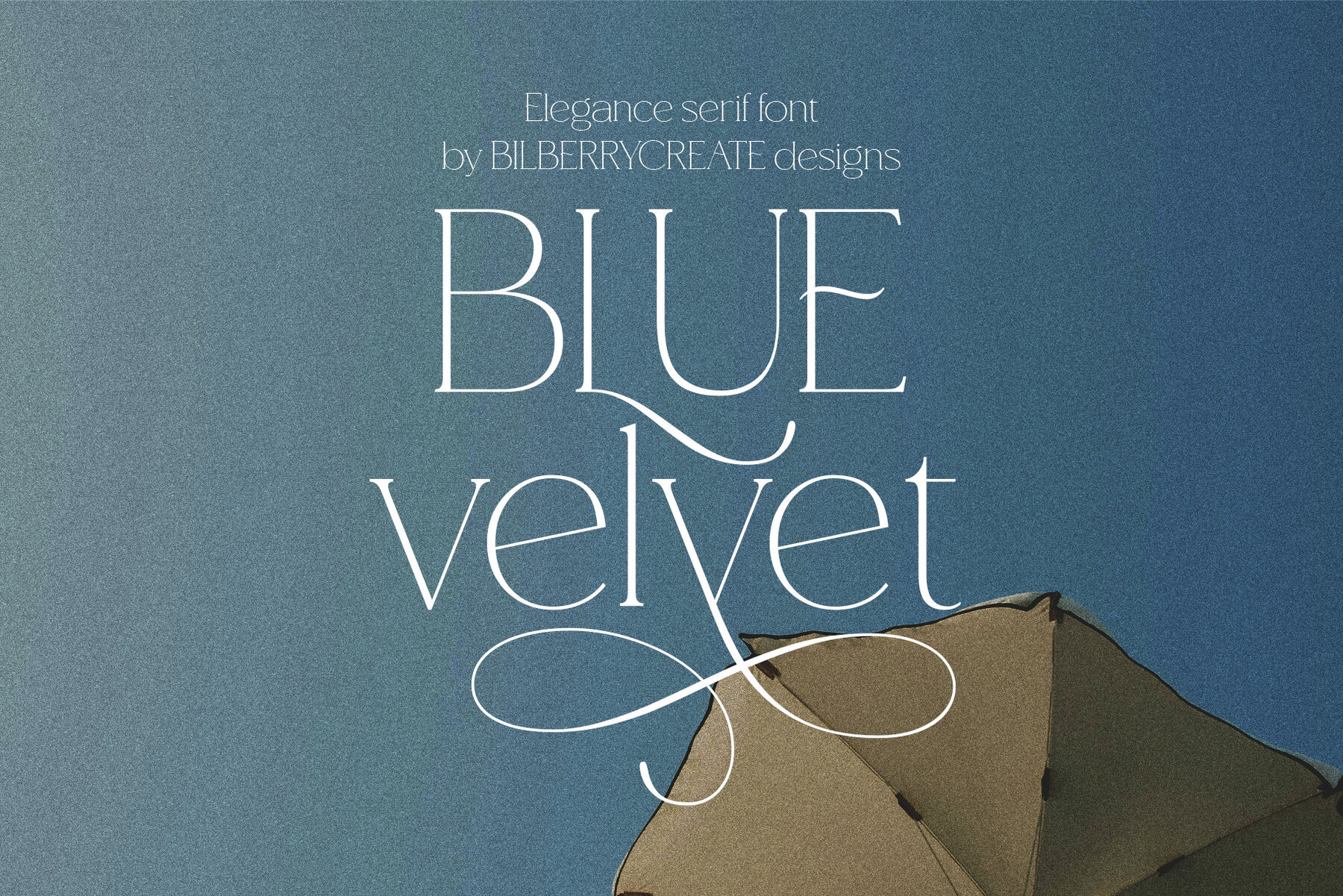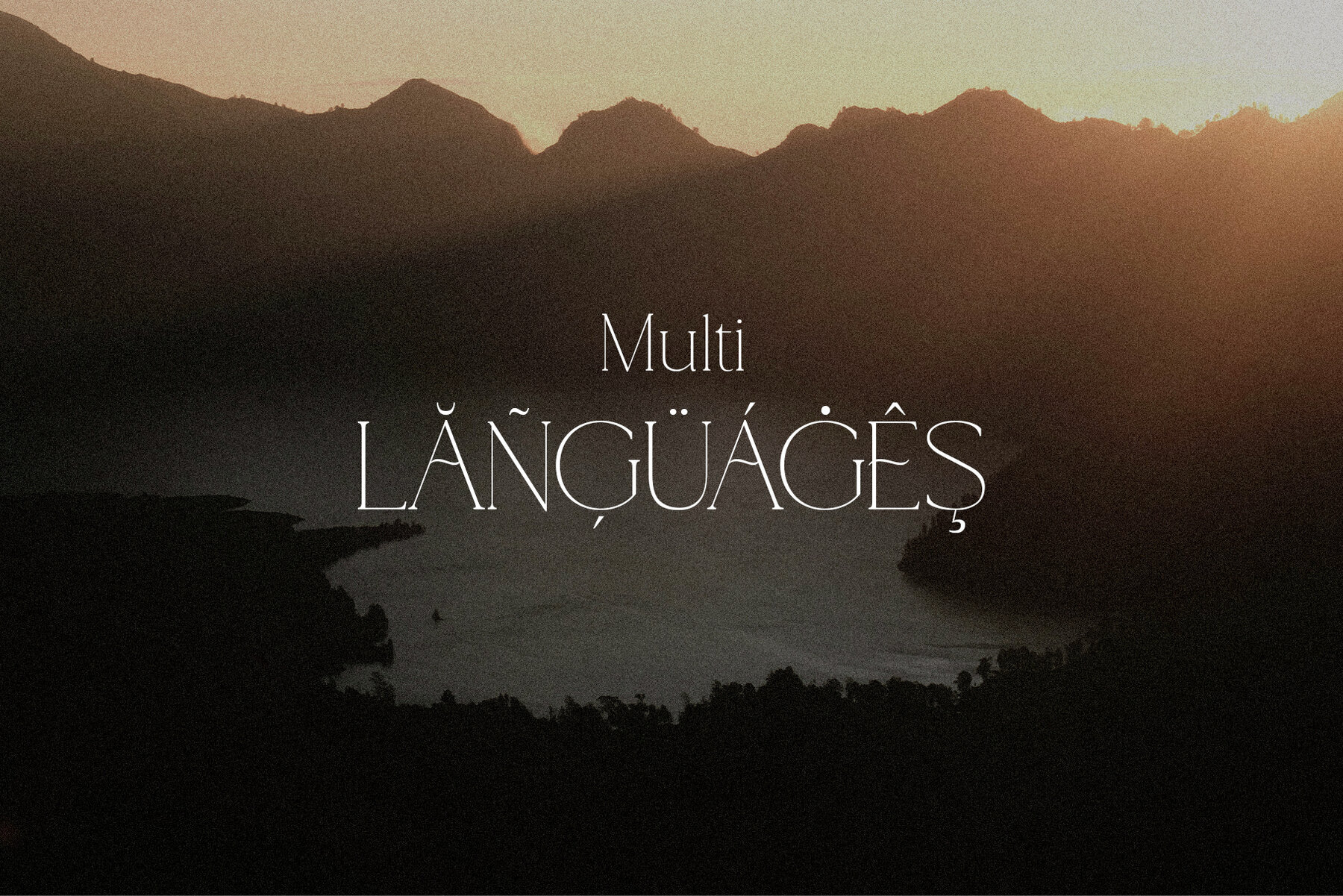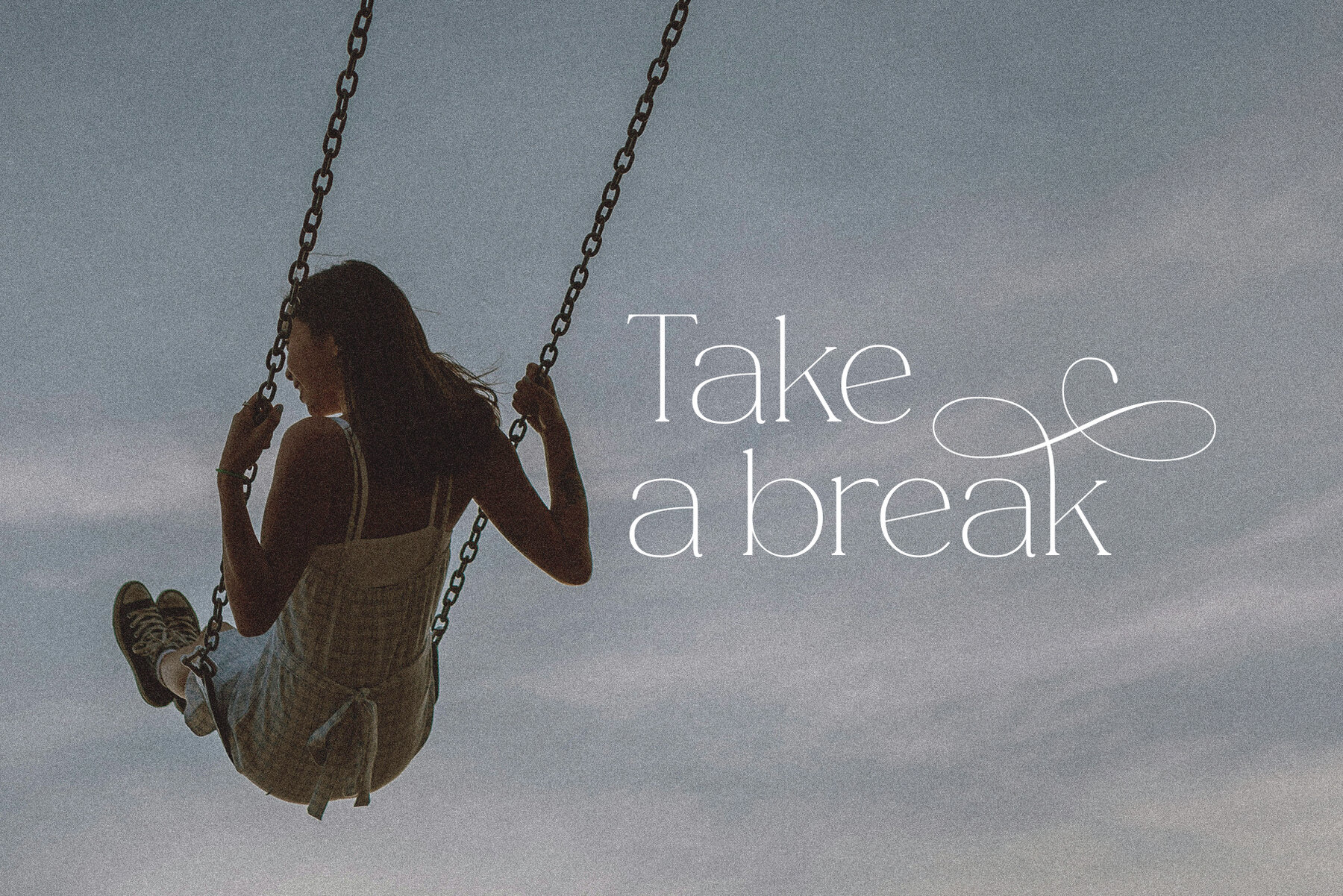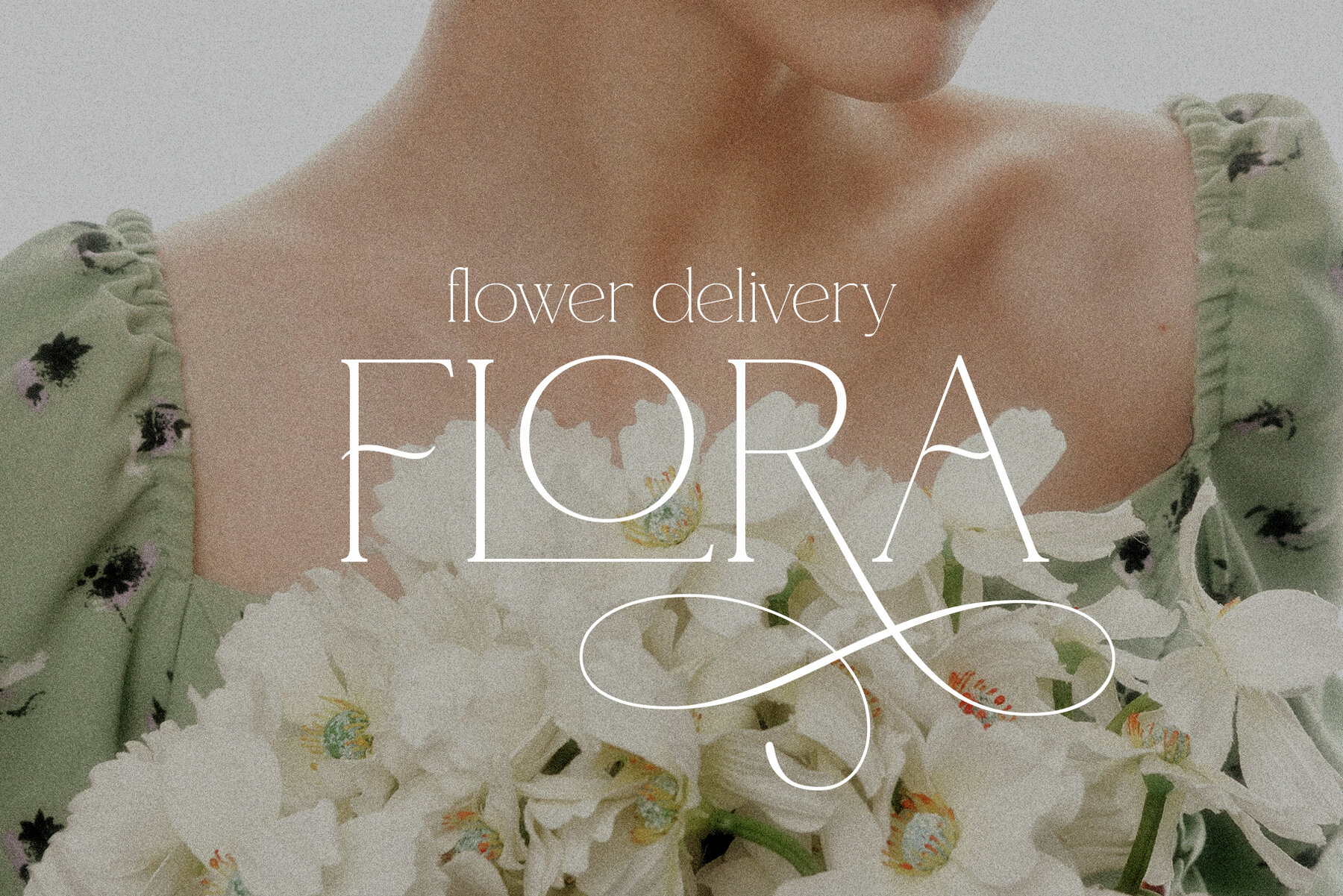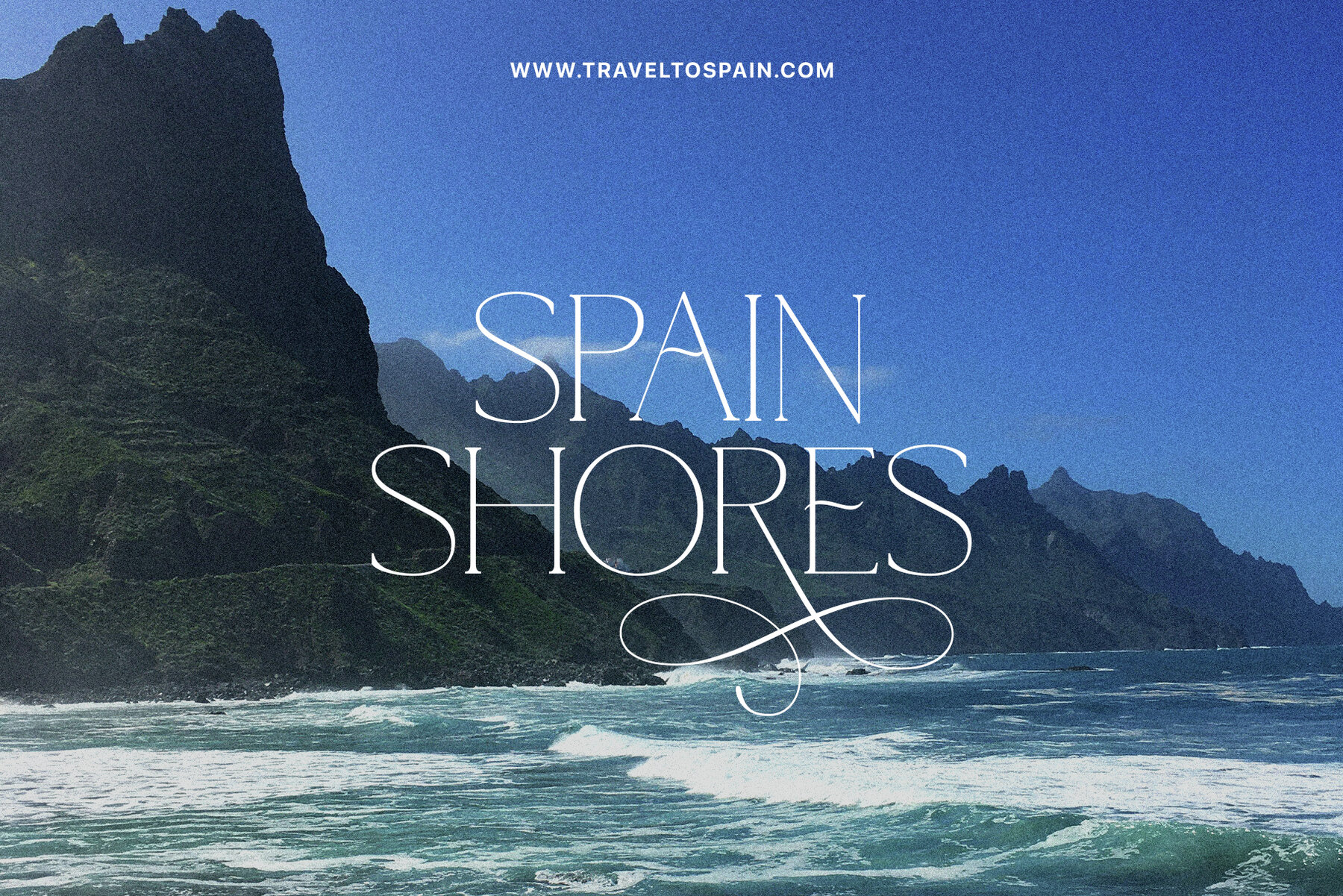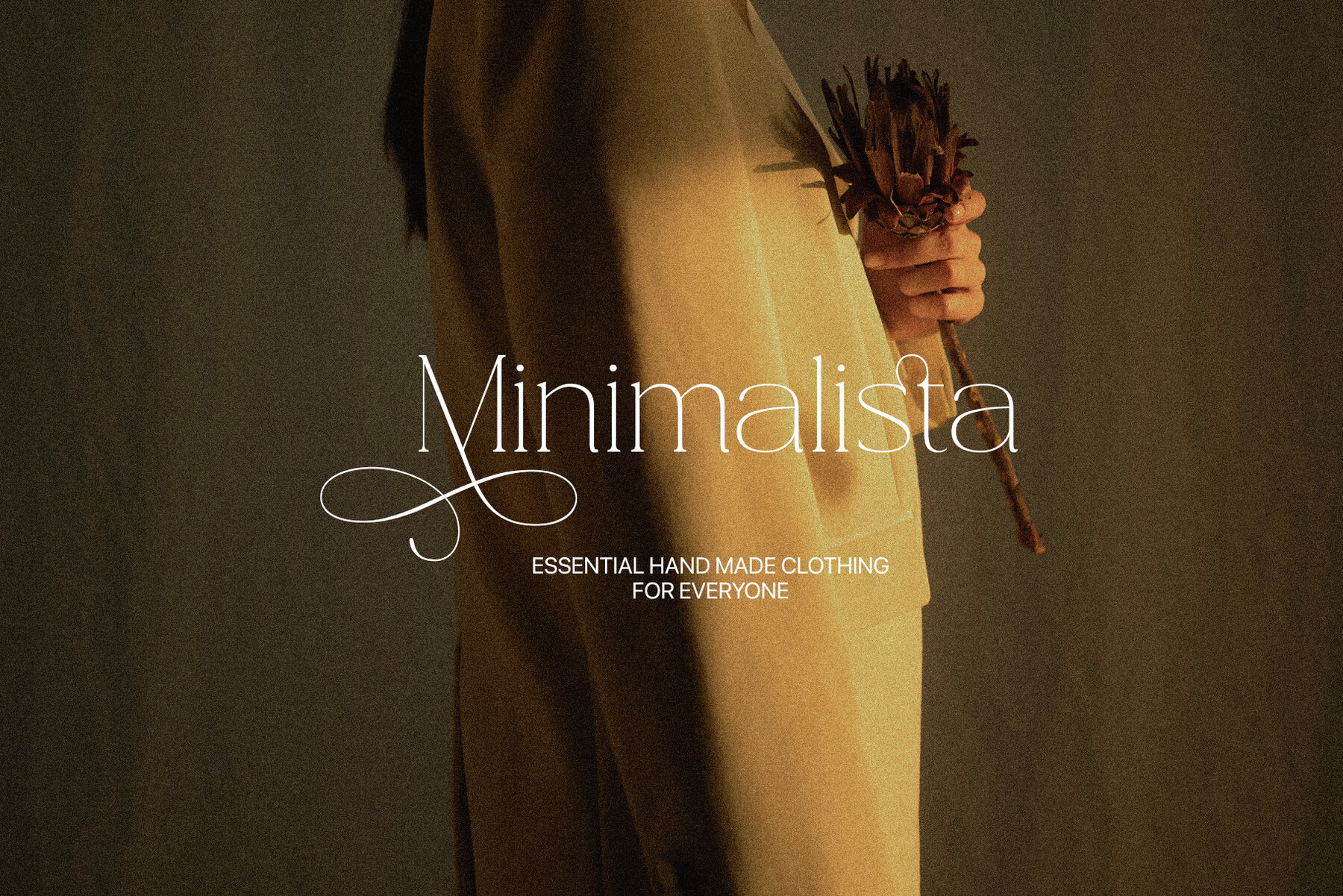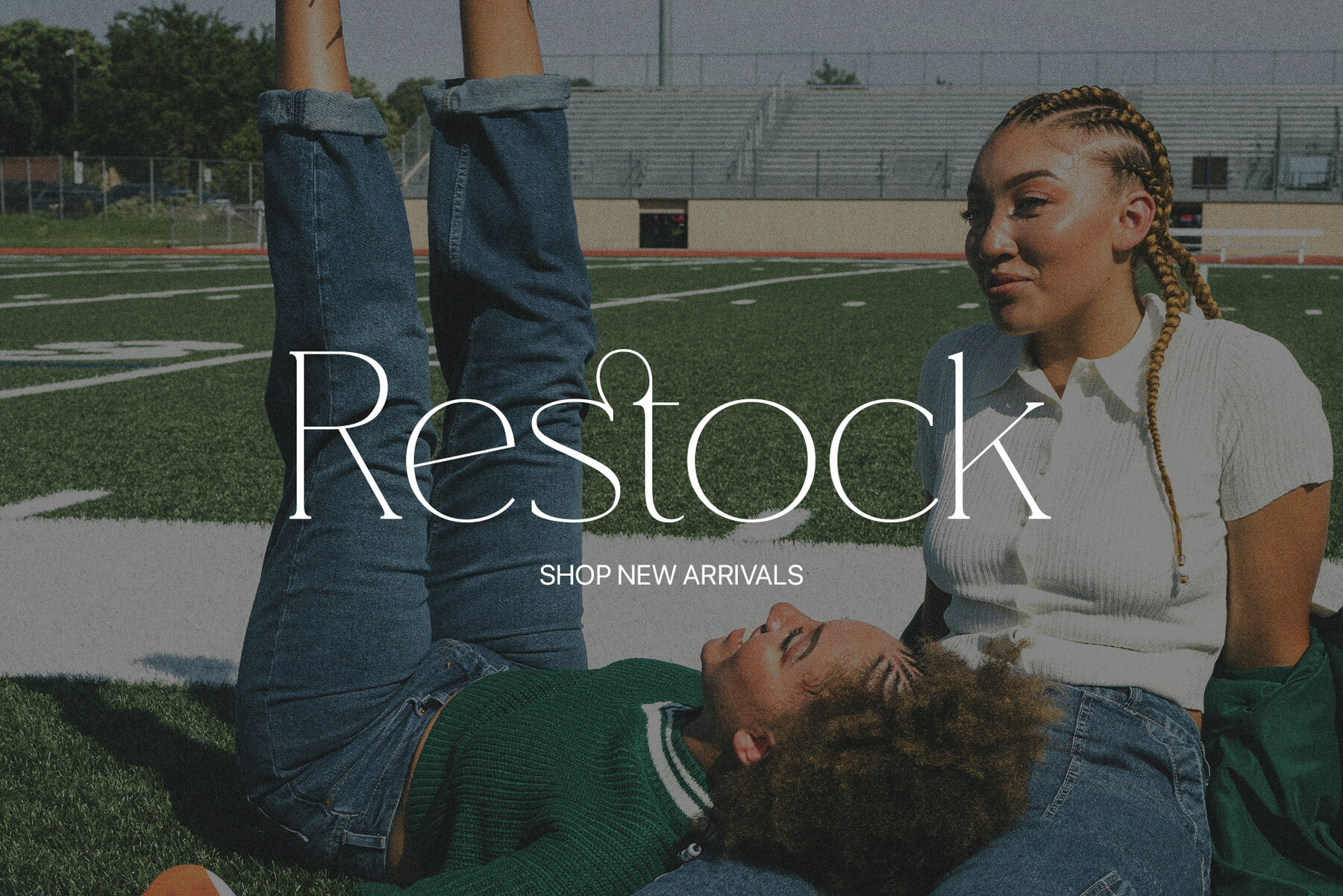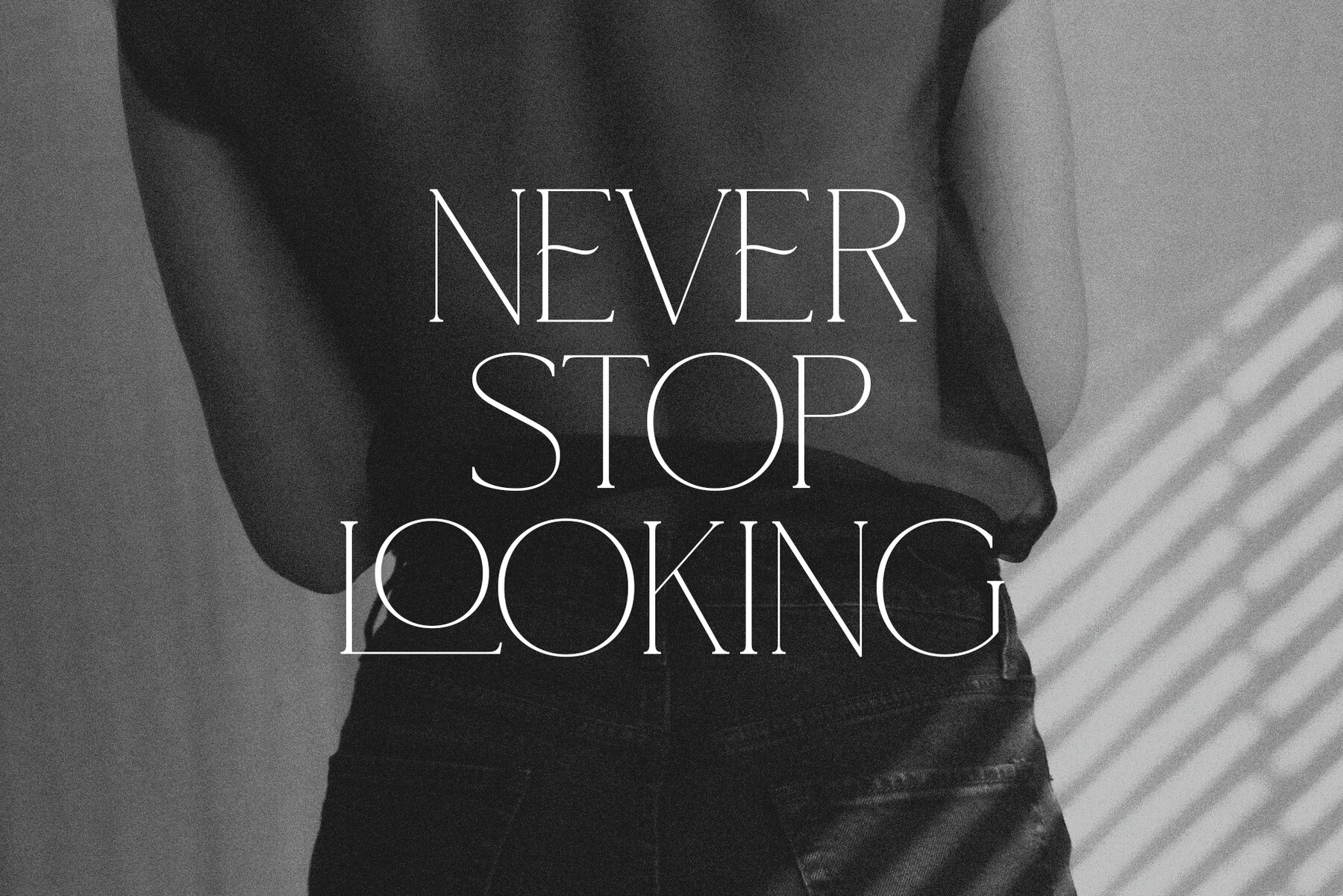
Blue Velvet Font
Blue Velvet Regular
Elevate your designs with Blue Velvet, an elegant serif font crafted by Bilberry Create Foundry. Whether you're designing for print or digital projects, this font adds a touch of sophistication and style. Blue Velvet is perfect for a wide range of creative projects. Use it to enhance: Included in the package:Blue Velvet: Elegant Serif Font for Versatile Creations